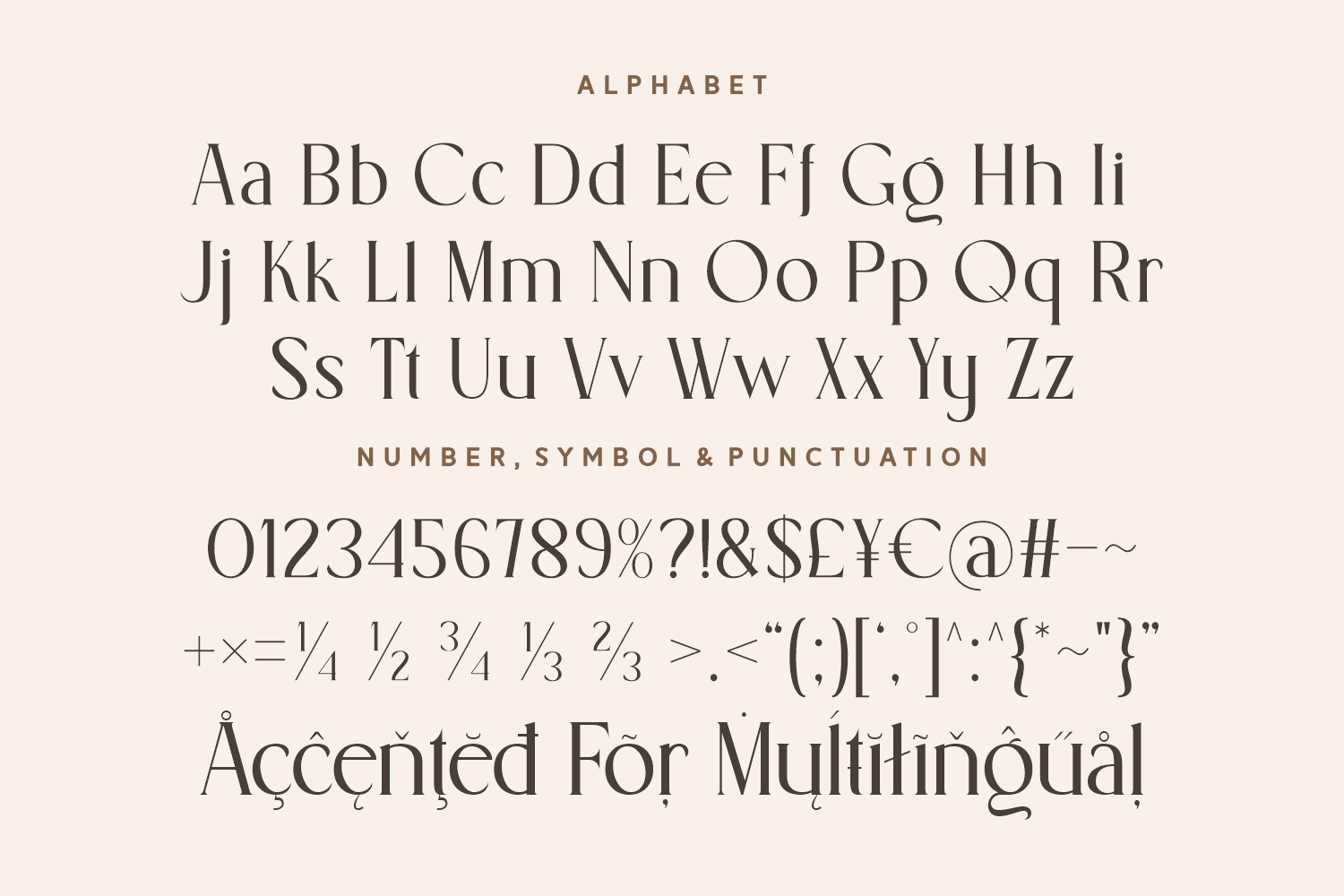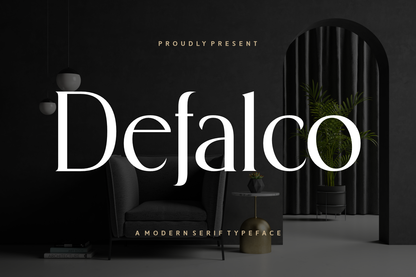
Defalco is a contemporary serif typeface with clean lines and stylish curves. Balancing modern design with timeless elegance, it’s ideal for branding, editorial design, and digital media that seek a sleek, professional look.